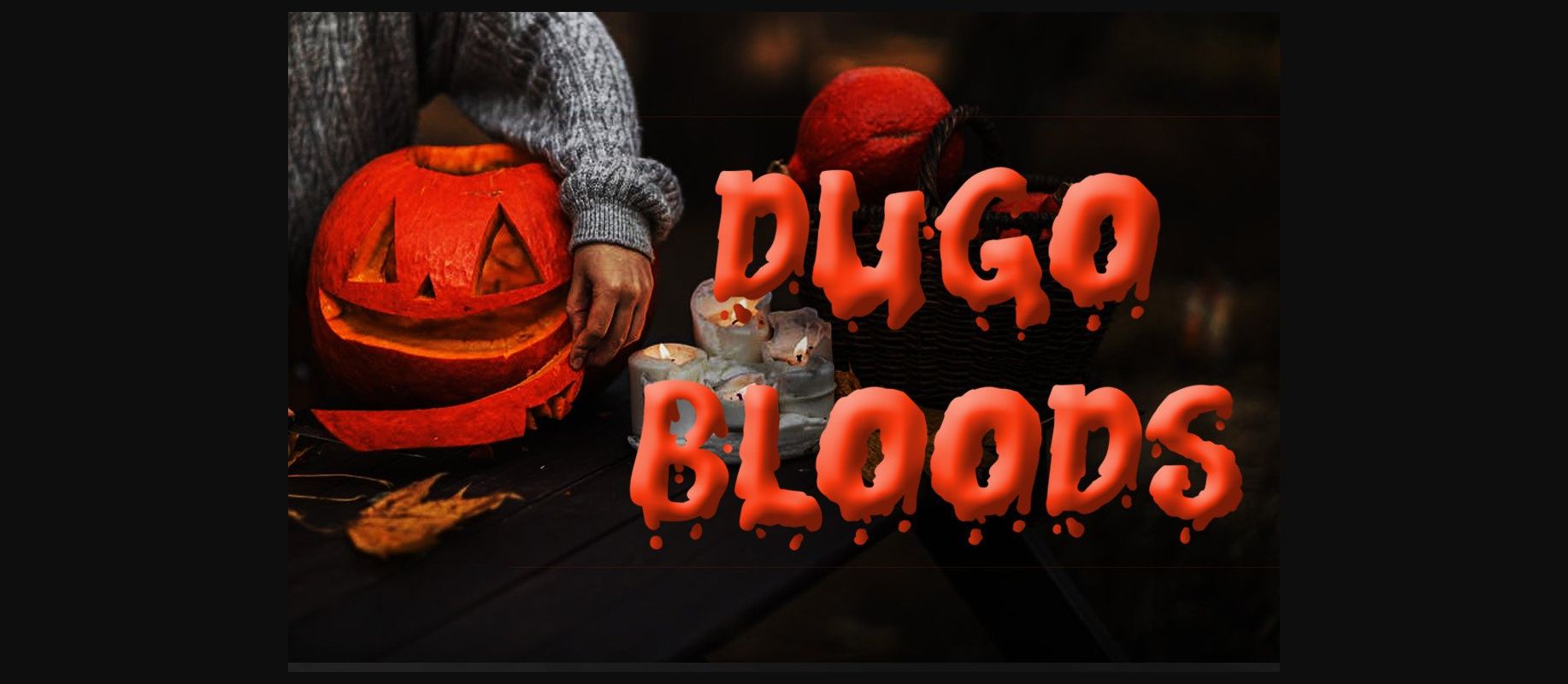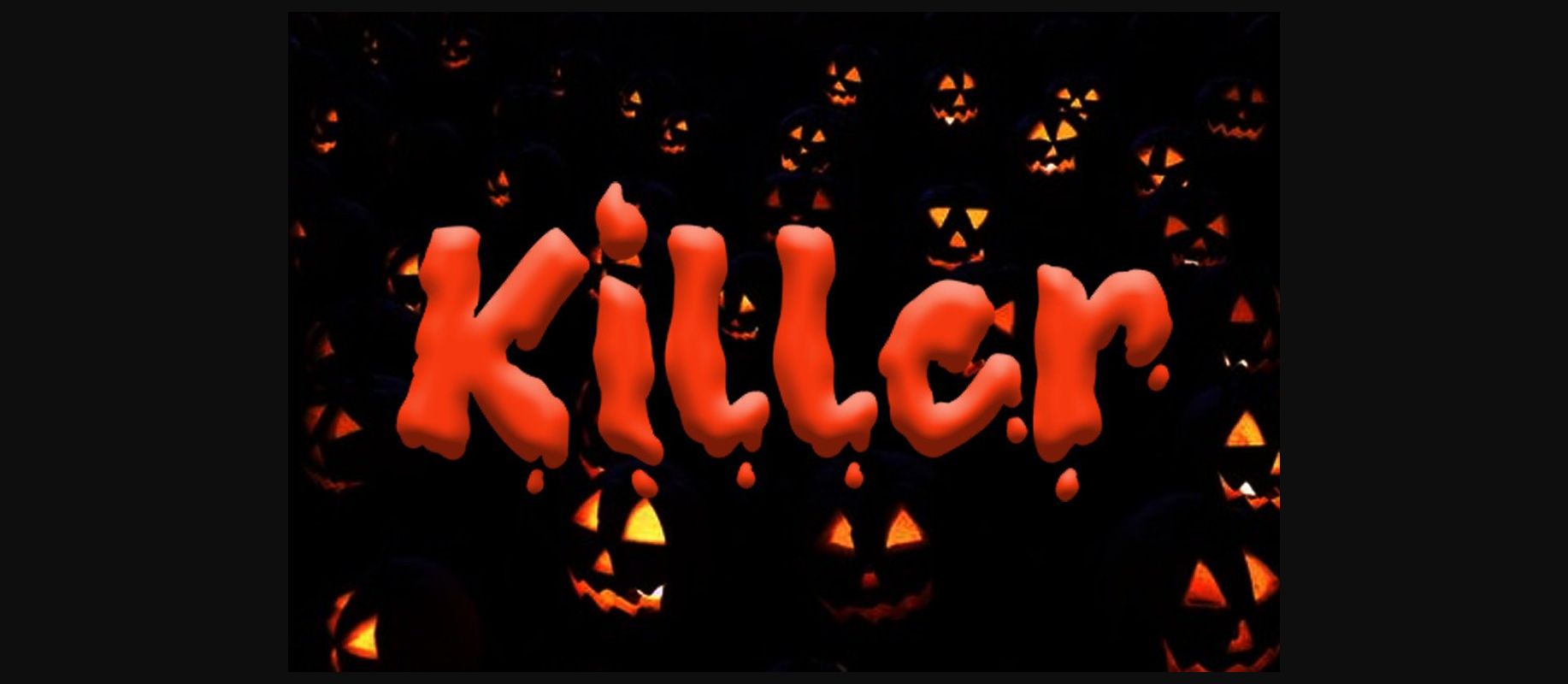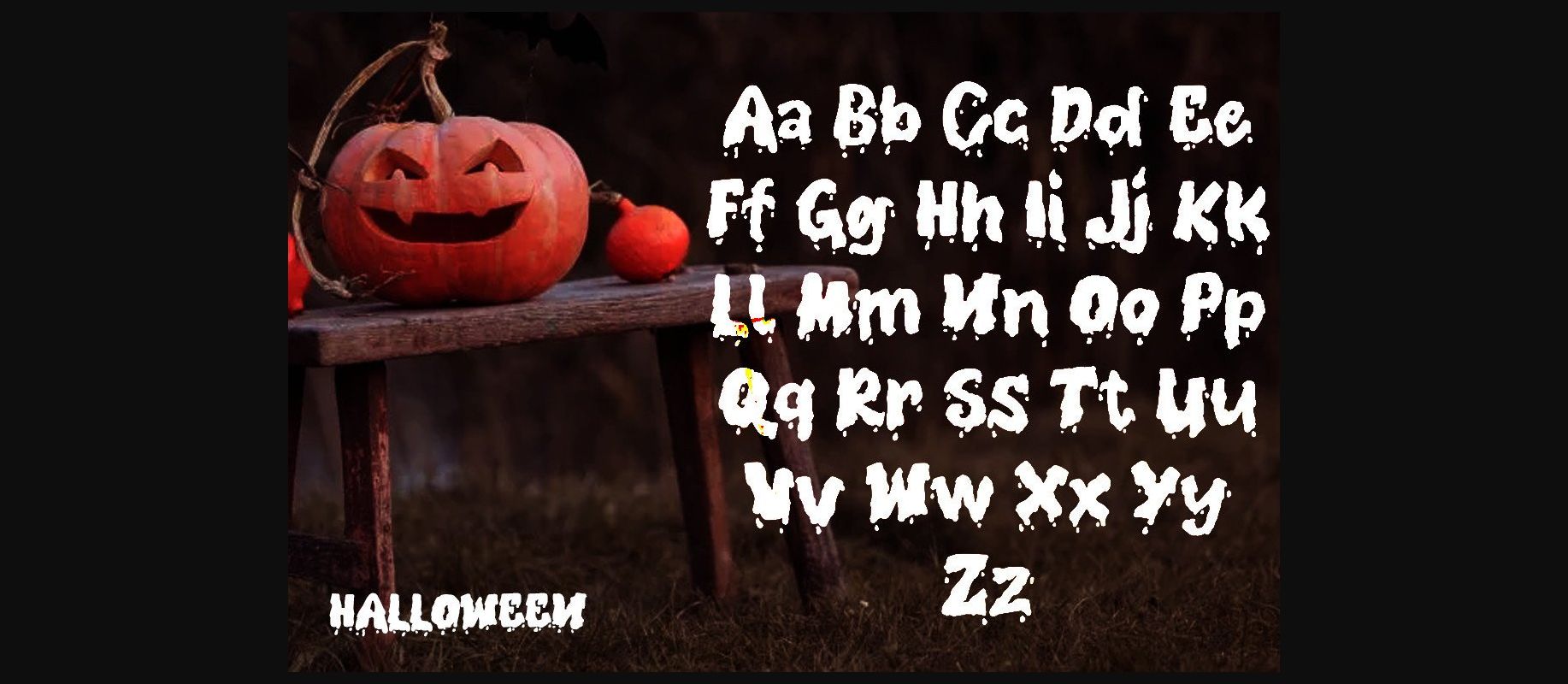
HomeDecorative FontsDugo Bloods Font Decorative Fonts Dugo Bloods Font FacebookXPinterestWhatsApp 1 of 5 ... Dugo Bloods Font Poster 2... Dugo Bloods Font Poster 3... Dugo Bloods Font Poster 4... Dugo Bloods Font Poster 5... About Dugo Bloods Font Dugo Bloods is a special decorative font with a flowing blood effect and spooky vibes for Halloween. Looks amazing on blood designs or anything related to Halloween. This font is suitable for all types of scary designs. DOWNLOAD NOW People also explored Verde Font Maurices Font Ice Cream Font Angellonia Font Messy Mood Font Black Font Herlina Font Wolves Font Venetian Old Scroll Signboard Mockup 279 0 TagsDugo Bloods Font Previous articleChocolate FontNext articleBuffalo Plaid Font LEAVE A REPLY Cancel reply Comment: Please enter your comment! Name:* Please enter your name here Email:* You have entered an incorrect email address! Please enter your email address here Website: Save my name, email, and website in this browser for the next time I comment. Personal Use Free Kitchen Blue Personal Use Free Read more about this font Bosque Font Personal Use Free Read more about this font Orchid Personal Use Free Read more about this font Leadent Script Personal Use Free Read more about this font BLOG How to Cut Any Font on Cricut: Convert a Font to SVG (Free) Turn any font into a clean SVG so it cuts crisp on Cricut - a quick 3-step workflow using a free font-to-SVG tool. Where to Buy American Fonts Online in 2024 How to Install and Use Fonts on Windows, macOS, and Web Projects Modern Sans-Serif Fonts That Brands Love in 2025